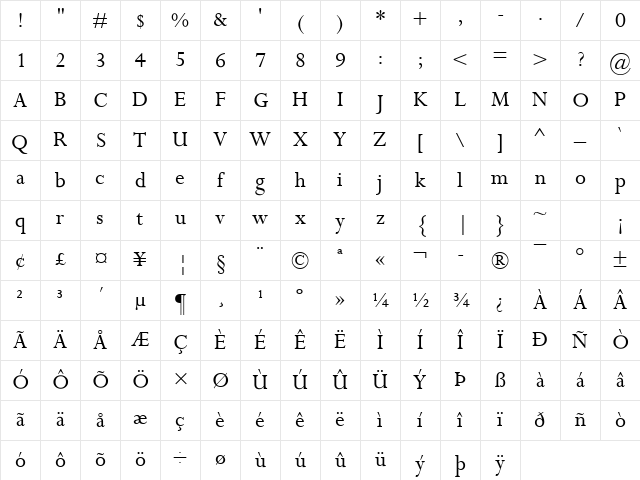
Perpetua MT Regular
Foundry: Agfa Monotype Corporation
Designer: Eric Gill
Design Context for Perpetua MT
Perpetua MT is a composed and adaptable typeface that performs quietly and consistently across a wide range of design contexts.